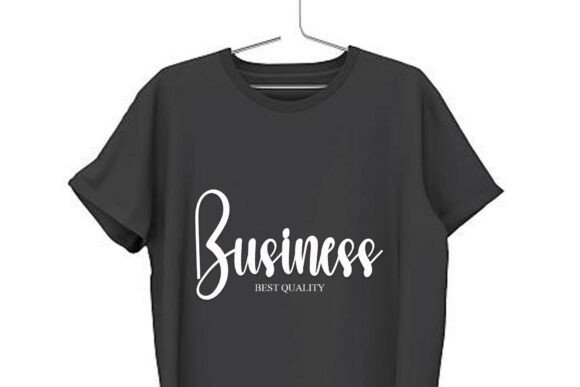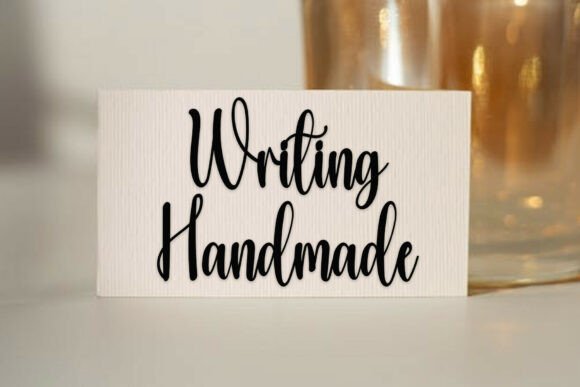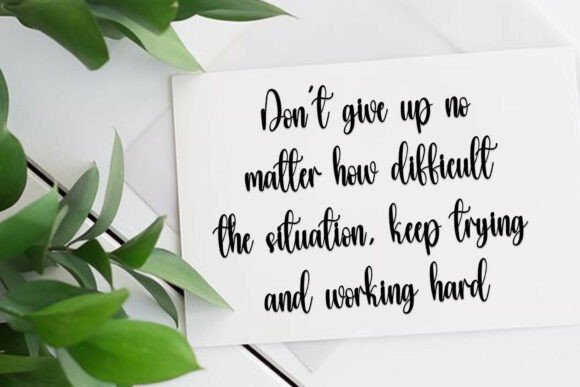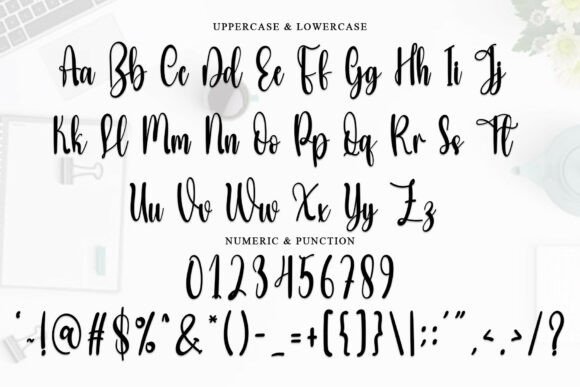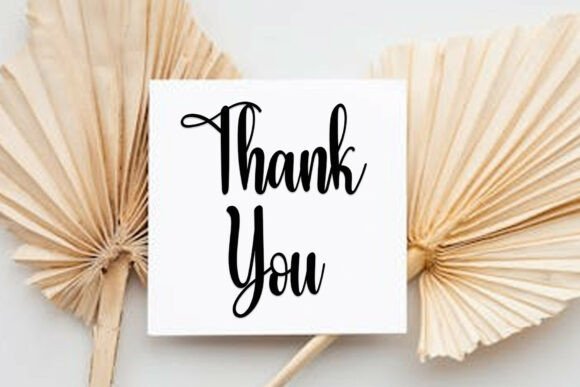
Discover the Beauty of Adventure Camping Font: Elevate Your Designs with Elegance
Are you a designer or crafter looking for a font that embodies the perfect blend of style, elegance, and adventure? Look no further than the Adventure Camping Font. This stunning font is inspired by timeless classic calligraphy, yet boasts a contemporary atmosphere that will elevate your projects to new heights. With its impeccable form and balanced design, Adventure Camping Font is the perfect addition to your typography collection.
A Font that Combines Style and Versatility
Adventure Camping Font is a beautifully crafted font that exudes sophistication and poise. Its elegant design makes it perfect for a wide range of projects, from outdoor and adventure-themed designs to luxury branding, packaging, and more. The font’s versatility is further enhanced by its PUA encoding, which allows you to access a vast array of glyphs and ligatures with ease.
Key Features of Adventure Camping Font
- PUA Encoded: With PUA encoding, you can effortlessly access all the amazing glyphs and ligatures, giving you the creative freedom to experiment with different design elements.
- Balanced and Varied: The font’s balanced design ensures that your text remains clear and legible, even at smaller sizes. The varied glyphs and ligatures also add a touch of uniqueness to your designs.
- Contemporary Atmosphere: Adventure Camping Font boasts a modern and fresh feel, making it perfect for designers and crafters who want to create designs that are both stylish and current.
- Elegant and Impeccable Form: The font’s elegant design and impeccable form make it perfect for luxury branding, high-end packaging, and other premium designs.
Use Cases for Adventure Camping Font
Adventure Camping Font is an incredibly versatile font that can be used in a wide range of projects, including:
- Outdoor and Adventure Branding: Create stunning logos, packaging, and marketing materials for outdoor gear companies, adventure tour operators, and eco-lodges.
- Luxury Packaging: Elevate your luxury packaging designs with the font’s elegant and sophisticated style.
- Wedding and Event Stationery: Add a touch of elegance and whimsy to your wedding and event stationery with Adventure Camping Font.
- Digital and Print Media: Use the font in digital and print media, such as magazines, brochures, and social media graphics.
Why Choose Adventure Camping Font?
- Unique and Distinctive: The font’s unique blend of classic calligraphy and modern style sets it apart from other fonts.
- Ease of Use: The PUA encoding makes it easy to access and use the font’s glyphs and ligatures.
- High-Quality Design: The font is designed to the highest standards, ensuring that your designs look professional and polished.
Adventure Camping Font is a truly exceptional font that offers a perfect blend of style, elegance, and adventure. With its impeccable form, balanced design, and PUA encoding, it’s the perfect addition to your typography collection. Whether you’re a designer or crafter, this font is sure to elevate your projects and help you create stunning designs that leave a lasting impression.